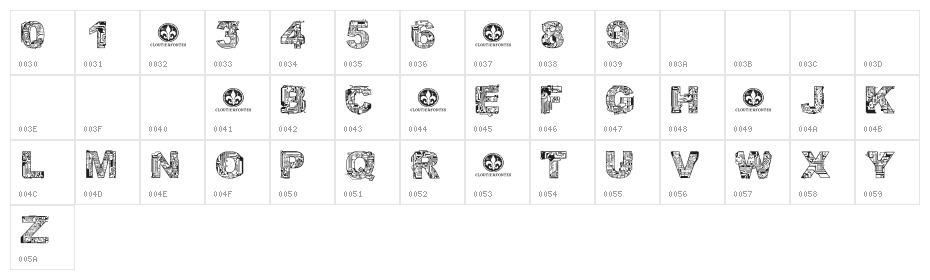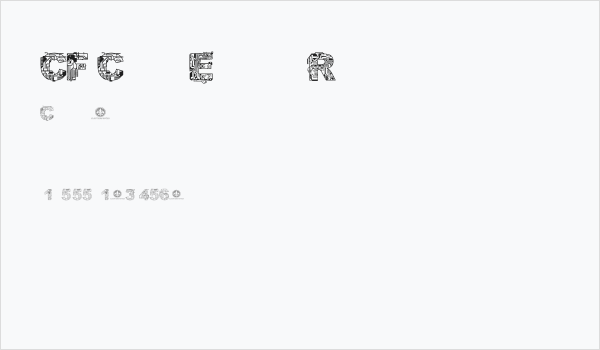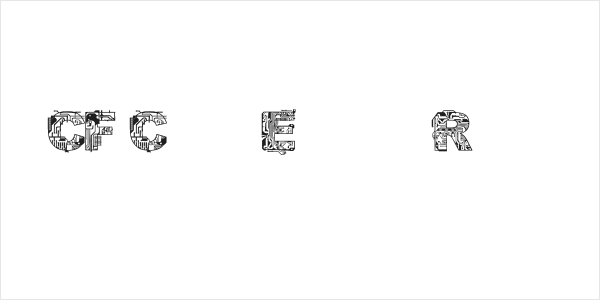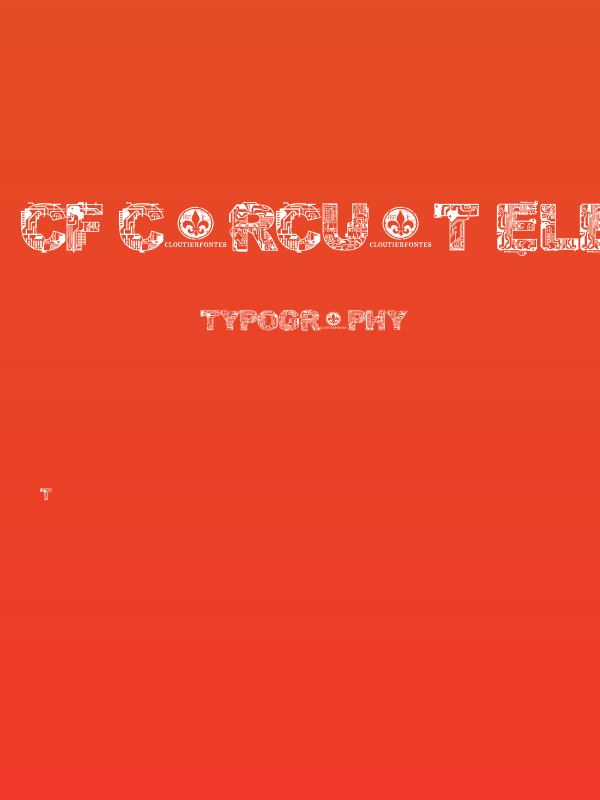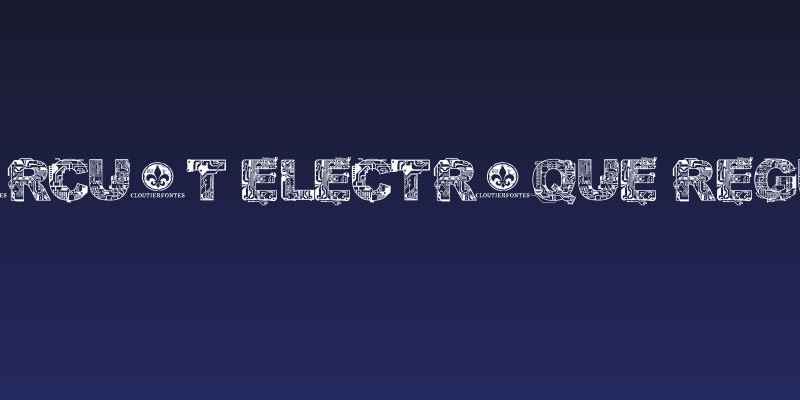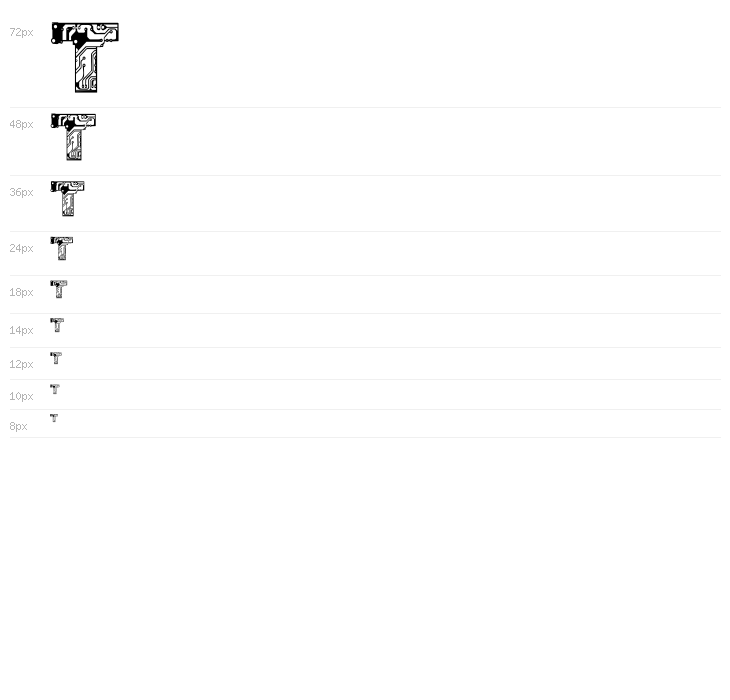
CF Circuit Electrique Regular Font
CF Circuit Electrique Regular Description
This font features an intricate, circuit-like design embedded within each character, giving it a highly decorative and technological appearance. The letters and numbers are filled with detailed patterns reminiscent of electronic circuits, making it ideal for projects that require a futuristic or tech-inspired aesthetic. The complexity of the design suggests a focus on visual impact rather than readability, making it more suitable for display purposes. The font includes uppercase letters and numbers, each uniquely styled with the circuit motif, and is likely intended for creative and artistic uses.
| Overall Style | Futuristic, Technological |
| Proposed Projects | Ideal for tech-themed posters, sci-fi book covers, video game graphics, and digital art projects. |